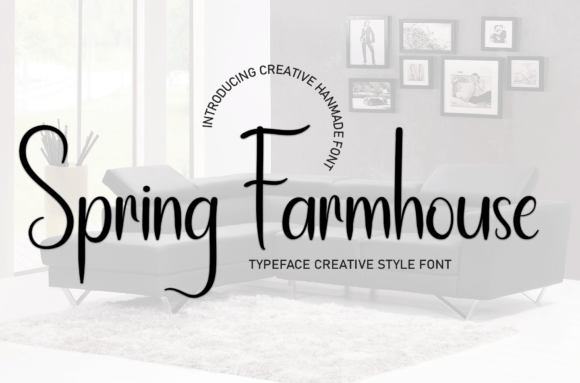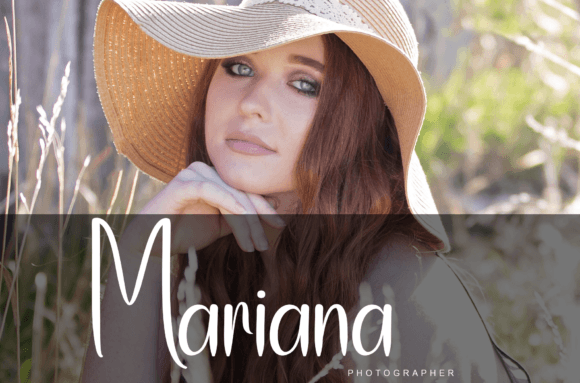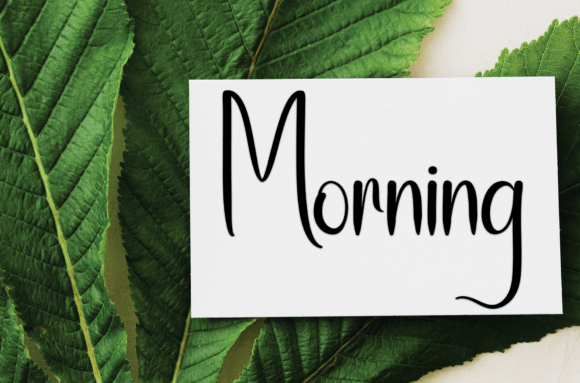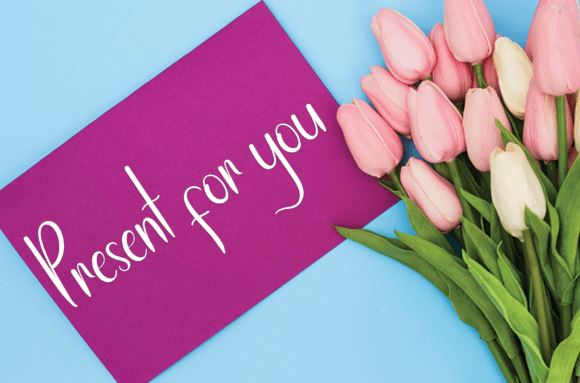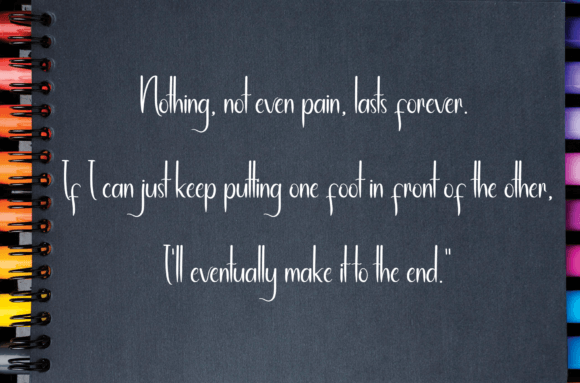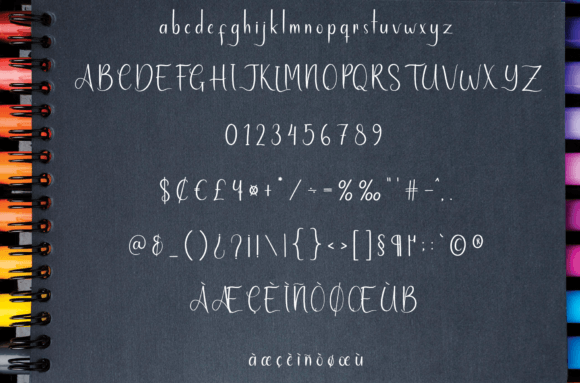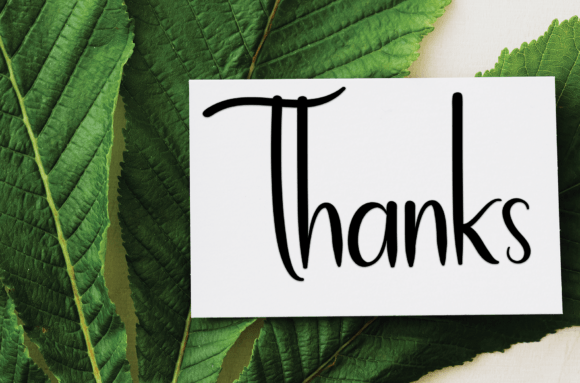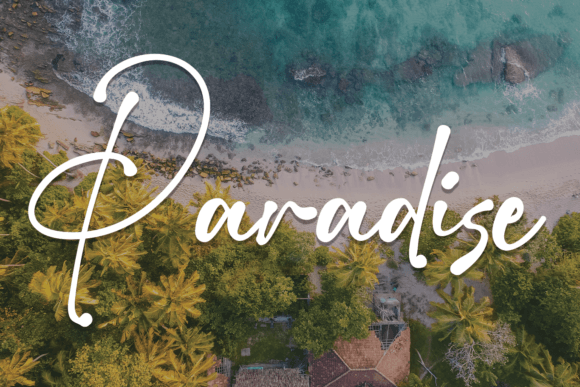
Spring Farmhouse Font
Bring Rustic Charm to Your Designs with Spring Farmhouse Handwritten Font
The Spring Farmhouse Handwritten Font is a sweet, approachable typeface that adds a personal and relaxed feel to your creative projects. With soft curves and a natural flow, this handwritten font captures the warm, cozy feeling of a spring morning on the farm—making it perfect for heartfelt and handcrafted designs.
Whether you’re designing for the season or simply want a font with rustic elegance, Spring Farmhouse delivers in style and personality.
Perfect for Invitations, Cards, and Seasonal Decor
Spring Farmhouse is a versatile font that shines in many creative contexts. It’s an excellent choice for wedding invitations, greeting cards, baby shower stationery, farmers’ market signs, seasonal quotes, and home decor designs. You can also use it to create charming Etsy product descriptions, craft labels, or printables that reflect a down-to-earth vibe.
Its handwritten quality makes it feel personal and inviting—ideal for both casual and romantic settings.
A Handwritten Script That’s Gentle and Joyful
The beauty of the Spring Farmhouse Handwritten Font lies in its relaxed structure and carefully drawn letterforms. It combines playful strokes with just the right amount of balance, ensuring your text remains legible while still evoking a sense of whimsy and joy.
Despite its friendly tone, this font stays clean and professional, which makes it perfect for everything from bold headlines to soft subheadings.
Works Seamlessly in Print and Digital Designs
Whether you’re crafting for the web or print, Spring Farmhouse performs beautifully across formats. From high-resolution prints to digital downloads, this font brings consistency and charm to your layouts. Use it for blog headers, Instagram story graphics, T-shirt designs, product packaging, and more.
To keep your design clean and stylish, try pairing Spring Farmhouse with a minimal sans-serif font. This contrast helps highlight the handwritten elements while maintaining visual harmony.
Why Designers Love Spring Farmhouse Handwritten Font
Here’s why this font is a favorite for creatives and crafters alike:
• Friendly, handwritten style with rustic charm
• Great for cards, seasonal signage, and home decor
• Easy to read at any size
• Adapts well to both print and digital formats
Add Handcrafted Warmth to Every Design
In conclusion, the Spring Farmhouse Handwritten Font is the ideal typeface for those who want to bring softness, personality, and seasonal charm to their work. Whether you’re designing for spring, love, or life’s everyday joys, this font adds a genuine, heartfelt feel to every word.
If you’re searching for a warm and inviting handwritten font, Spring Farmhouse is the perfect choice to elevate your creative vision.